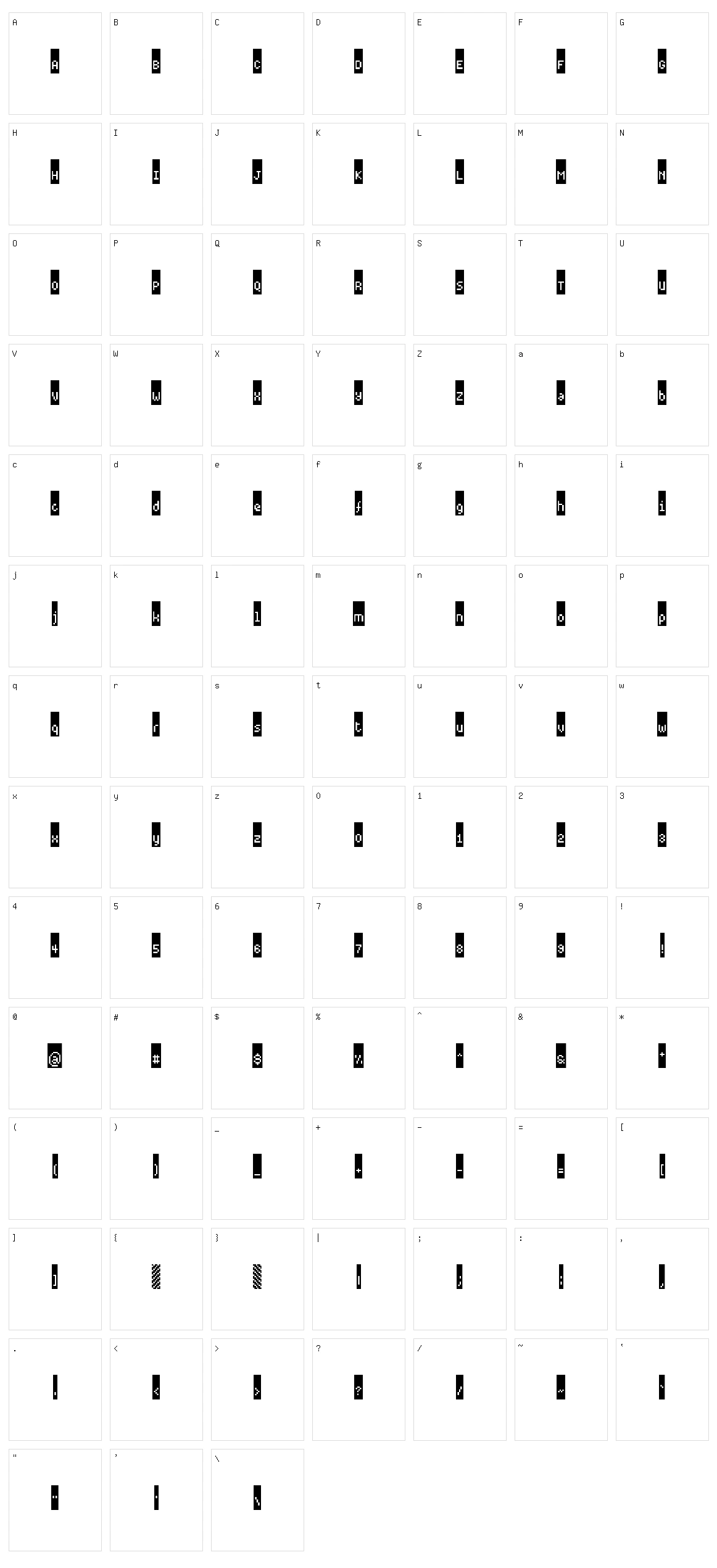
Black Label Pixel
BLACK LABEL PIXEL is a Dymo-like bitmap font. For more information about the use of bitmap fonts, please make sure you check the Help in the Bitmap section on dafont : http://www.dafont.com/bitmap.php